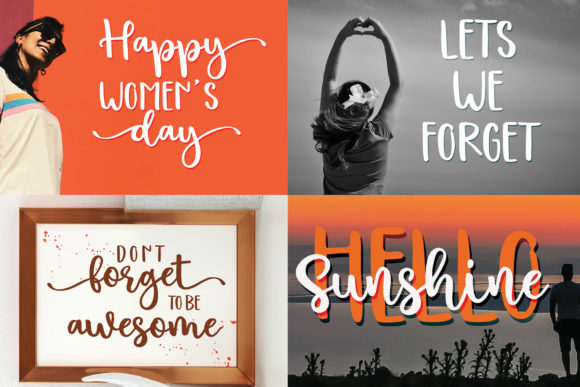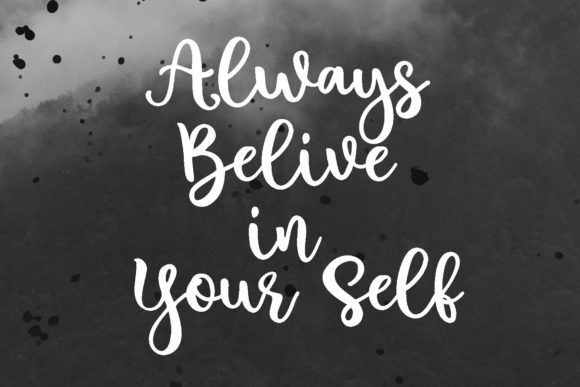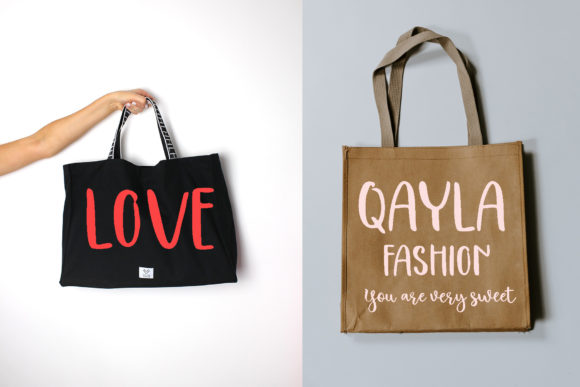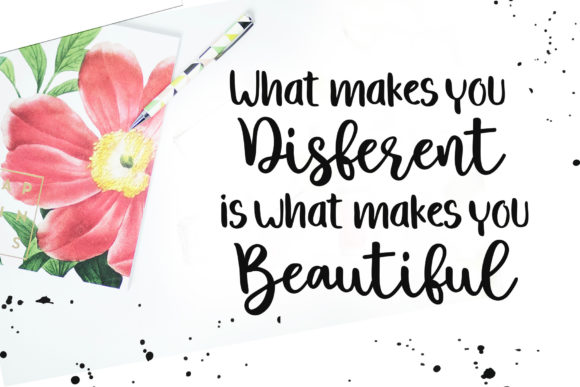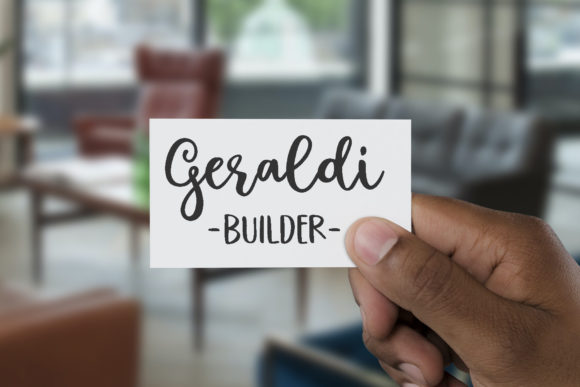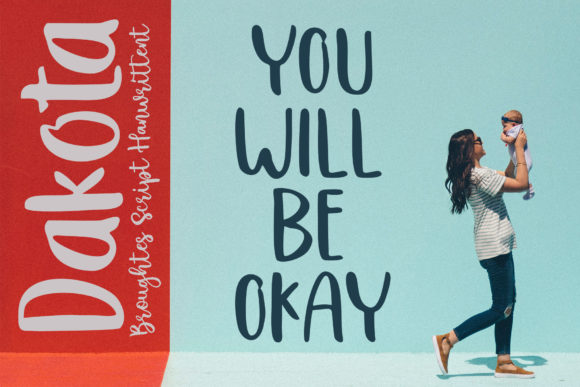
Discover the Magic of Broughtes Font
Have you ever sat at your desk, staring at a blank page, waiting for inspiration to strike? The cursor blinks impatiently, and your mind goes blank. Suddenly, a spark of creativity ignites, and the words start flowing. This is the moment every designer lives for – the moment when a project comes to life.
For those magical moments, you’ll need the perfect tool to bring your vision to life. That’s where Broughtes Font comes in – a ravishing script font that’s perfectly crafted to elevate your creations. With its intricate details and PUA encoding, this font is a valuable addition to any designer’s library, capable of taking any project to the next level.
Whether you’re working on a wedding invitation, a logo, or a novel, Broughtes Font is sure to be your new best friend. Its versatility and charm make it an essential asset for any designer looking to add a touch of elegance to their work.
Broughtes Font Key Features
- Unique Characteristics: Designed to be highly legible at small sizes, making it ideal for digital use, and features a unique, modern aesthetic.
Broughtes Font Review
Overall, I’m impressed with the Broughtes Font. It has a unique and elegant design that can add a touch of sophistication to any project. Here’s what works well:
- ✨ Beautiful typography: The font has a beautiful, flowing feel that’s perfect for body text or headlines.
- ✨ Great legibility: The characters are well-designed and easy to read, even at small font sizes.
- ✨ Versatile: The font comes in multiple weights and styles, making it easy to use in a variety of contexts.
- ⚠️ Limited character set: The font only includes a limited range of characters, which may be a problem for languages that require a broader character set.
- ⚠️ Not suitable for display use: While the font is great for body text, it may not be the best choice for display use, such as titles or headings.
Overall, I think the Broughtes Font is a solid choice for designers who want a elegant, legible font for body text. However, it may not be the best choice for projects that require a wide range of characters or display use.
Tips for Getting the Most Out of Broughtes Font
For optimal results, use Broughtes Font in conjunction with a clean and minimalist design. Experiment with different font sizes and colors to create visual hierarchy and emphasis.
Broughtes Font is ideal for use in creative and artistic projects, such as branding, logos, and advertising materials. Its unique style and versatility make it a popular choice for designers looking to add a touch of elegance and sophistication to their work.